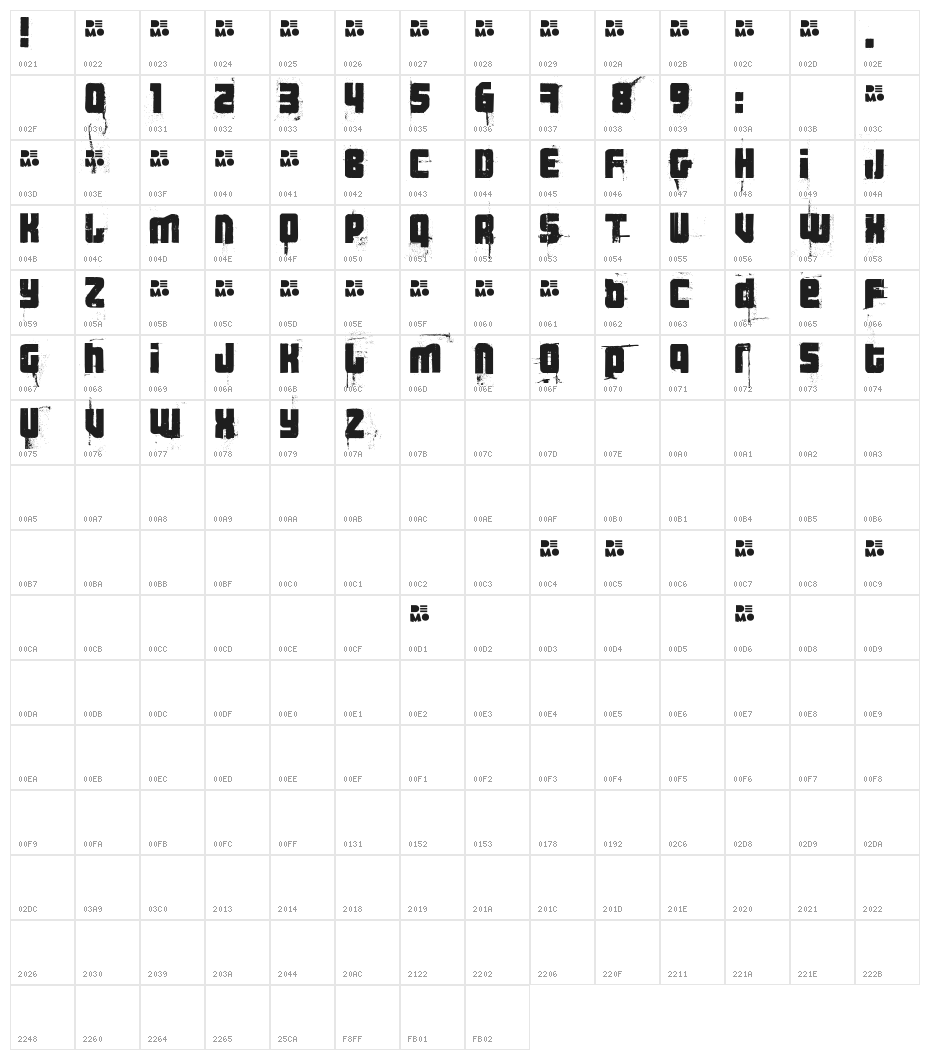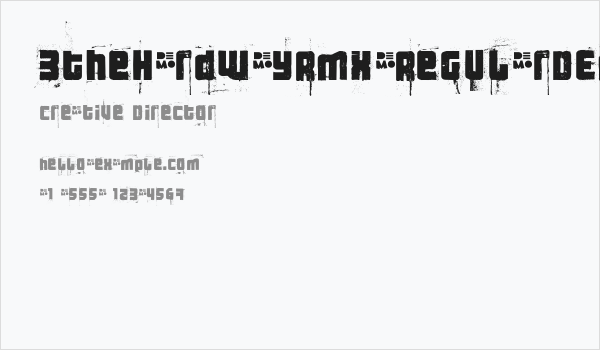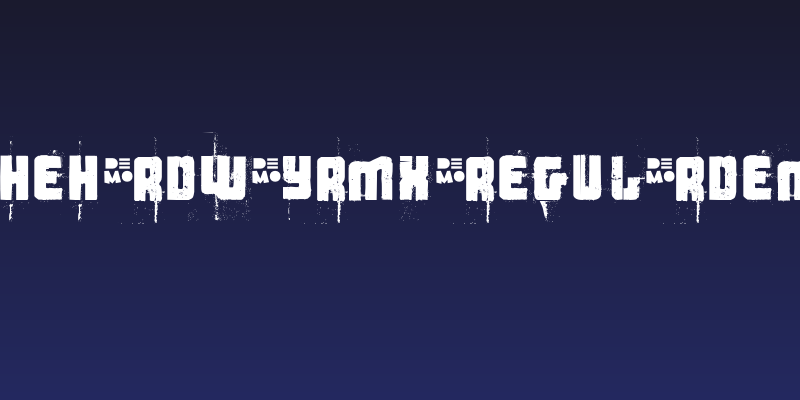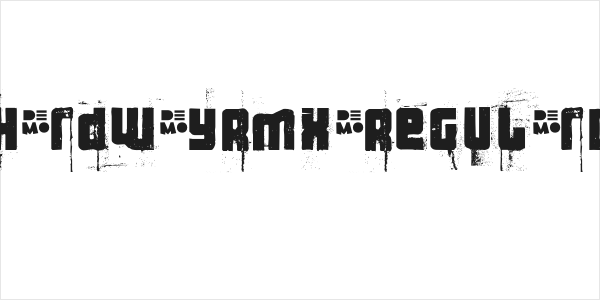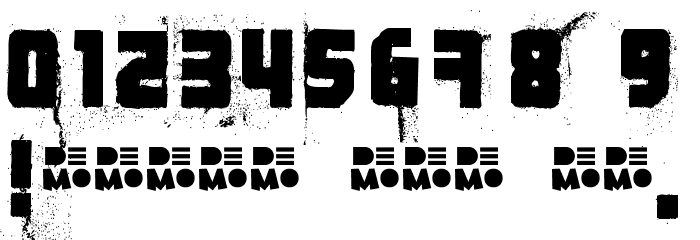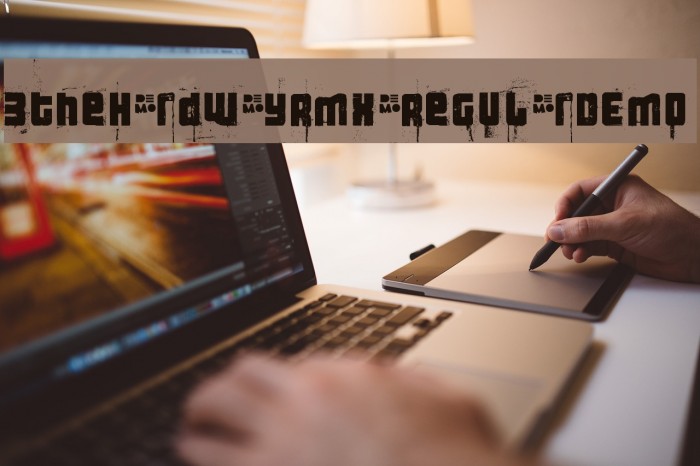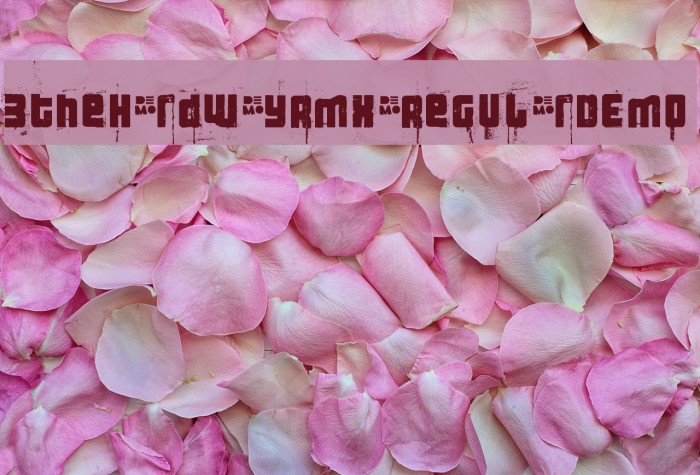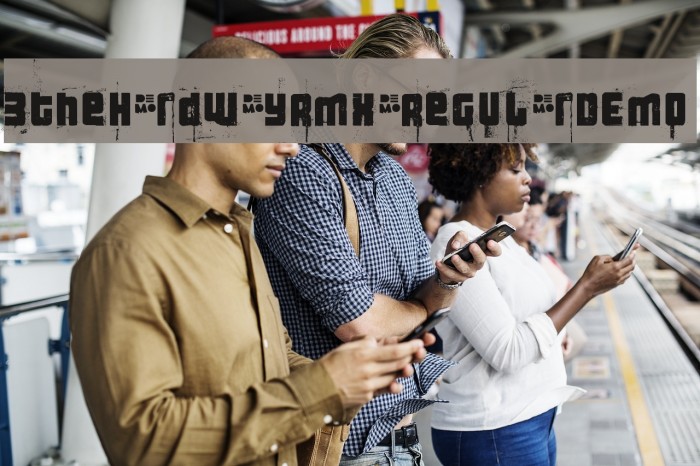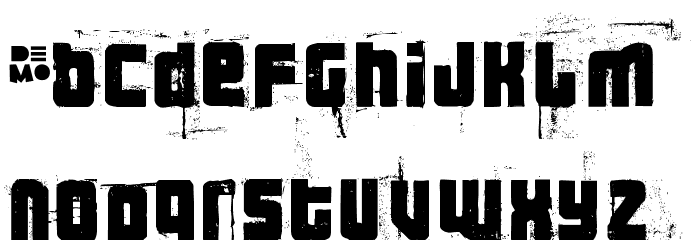
3theHardwayRMX-RegularDEMO Font
3theHardwayRMX-RegularDEMO Description
This font exhibits a bold, distressed style with a gritty, urban aesthetic. The characters are blocky and robust, featuring a weathered texture that gives them a worn, industrial look. The uppercase and lowercase letters maintain a consistent width, contributing to a uniform appearance. The numbers and special characters follow the same rugged design, making the font suitable for projects that require a strong, impactful visual presence. Its unique style is reminiscent of street art or graffiti, adding a rebellious and edgy feel to any design.
| Overall Style | Urban, Industrial, Edgy |
| Proposed Projects | Ideal for posters, album covers, streetwear branding, or any project needing a bold, edgy look. |